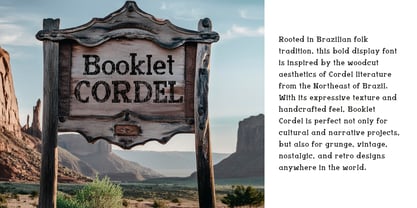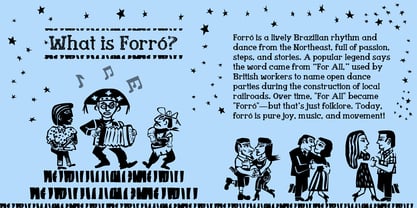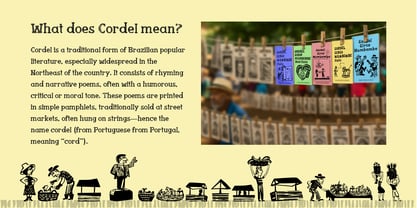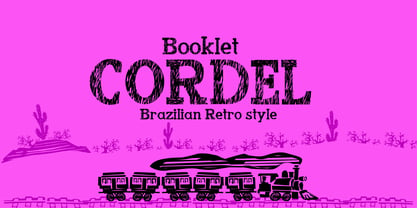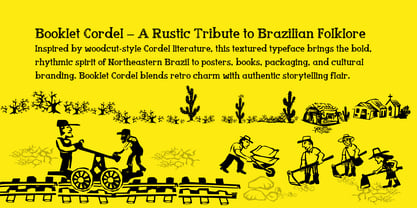
Booklet Cordel
by Galdino Otten Fonts
Booklet Cordel – A Rustic Tribute to Brazilian Folklore
Inspired by woodcut-style Cordel literature, this textured typeface brings the bold, rhythmic spirit of Northeastern Brazil to posters, books, packaging, and cultural branding. Booklet Cordel blends retro charm with authentic storytelling flair.